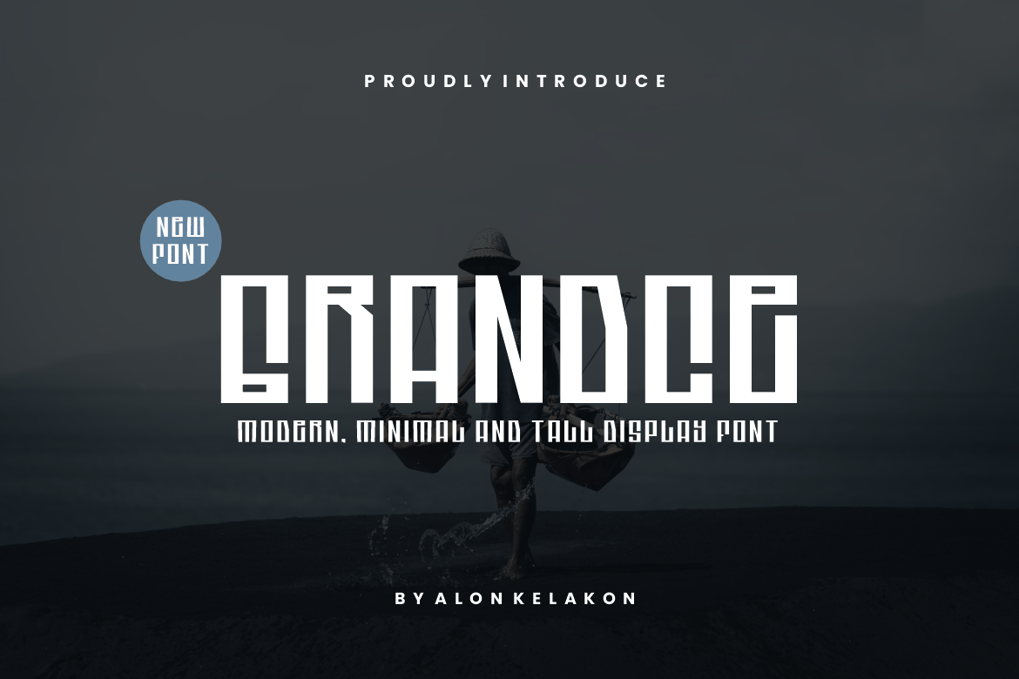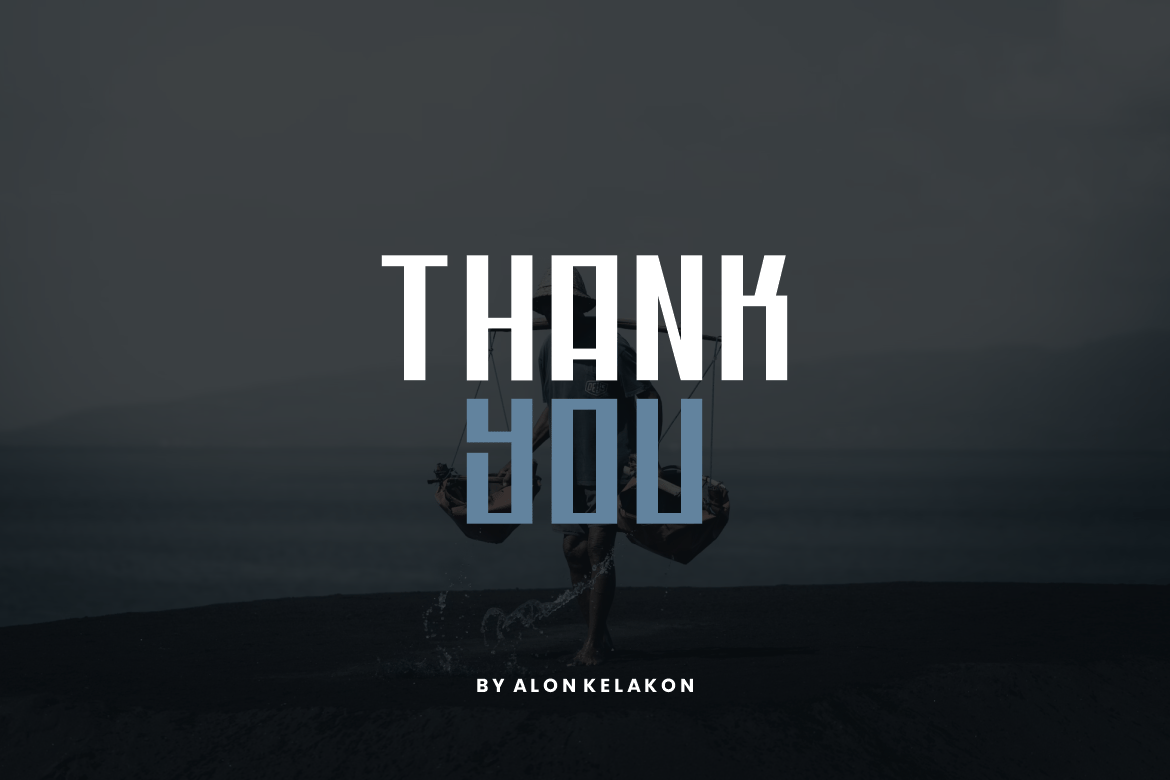
Grandce – Tall Display Font
Grandce – Tall Display Font Font is unique . Ready to use for your design like labeling, movie sceen, poster, movie title, gigs, album covers, logos, and much more.